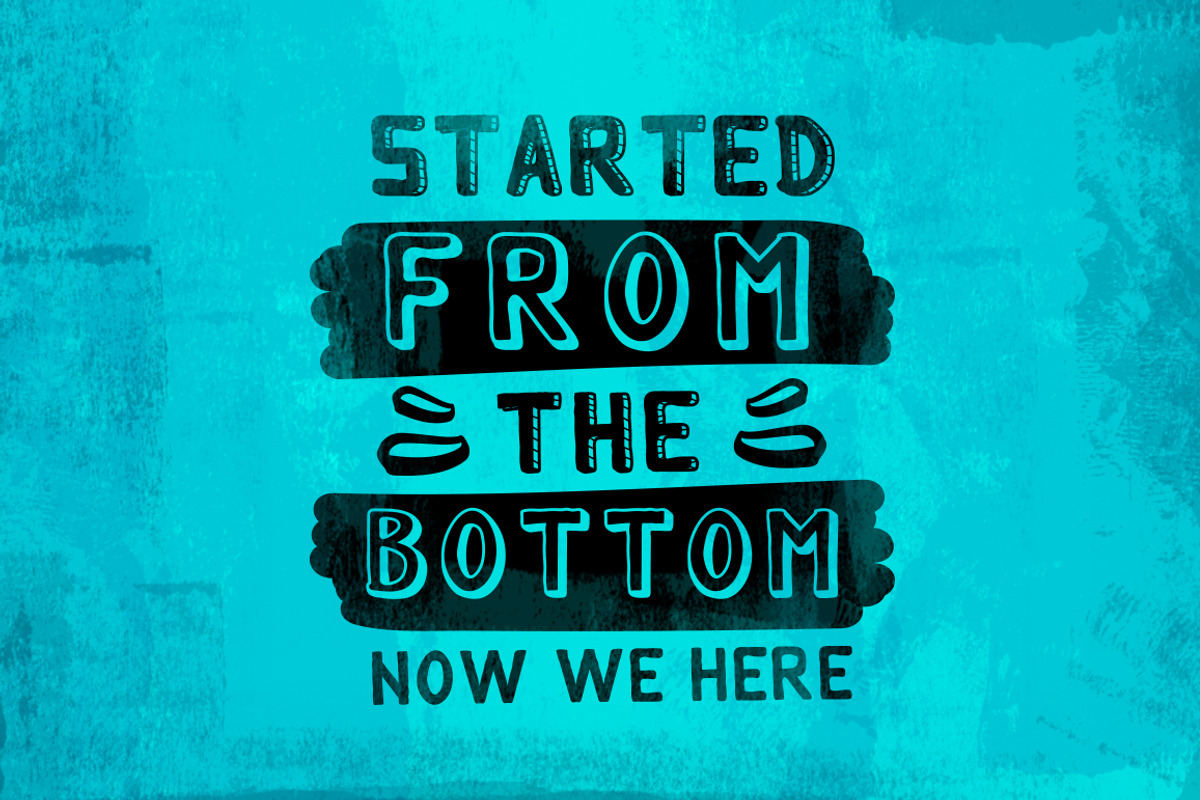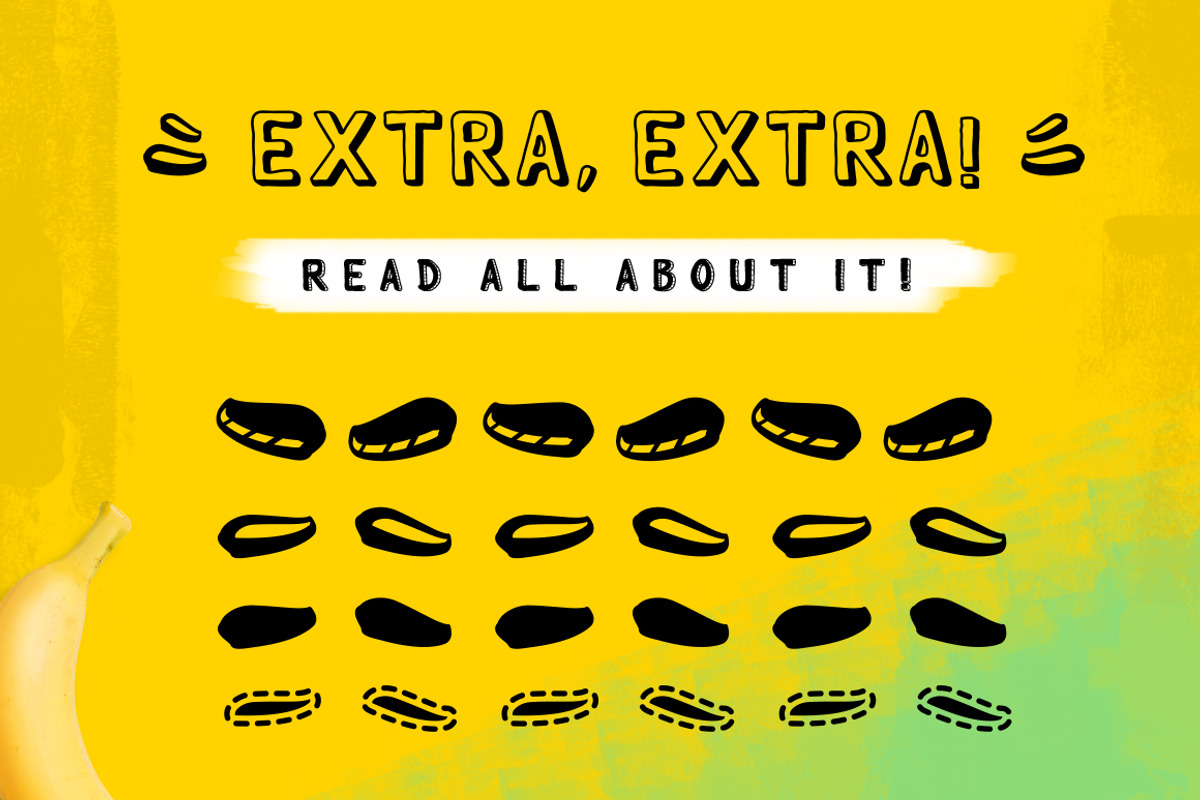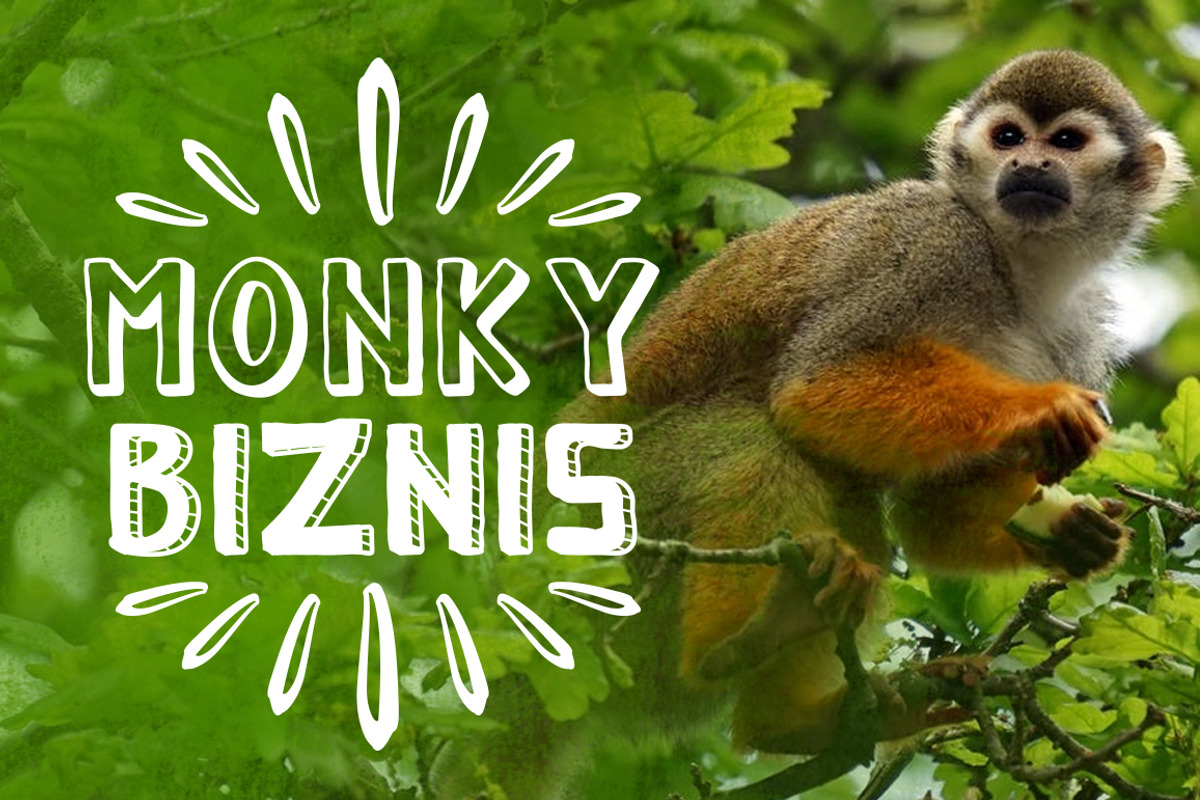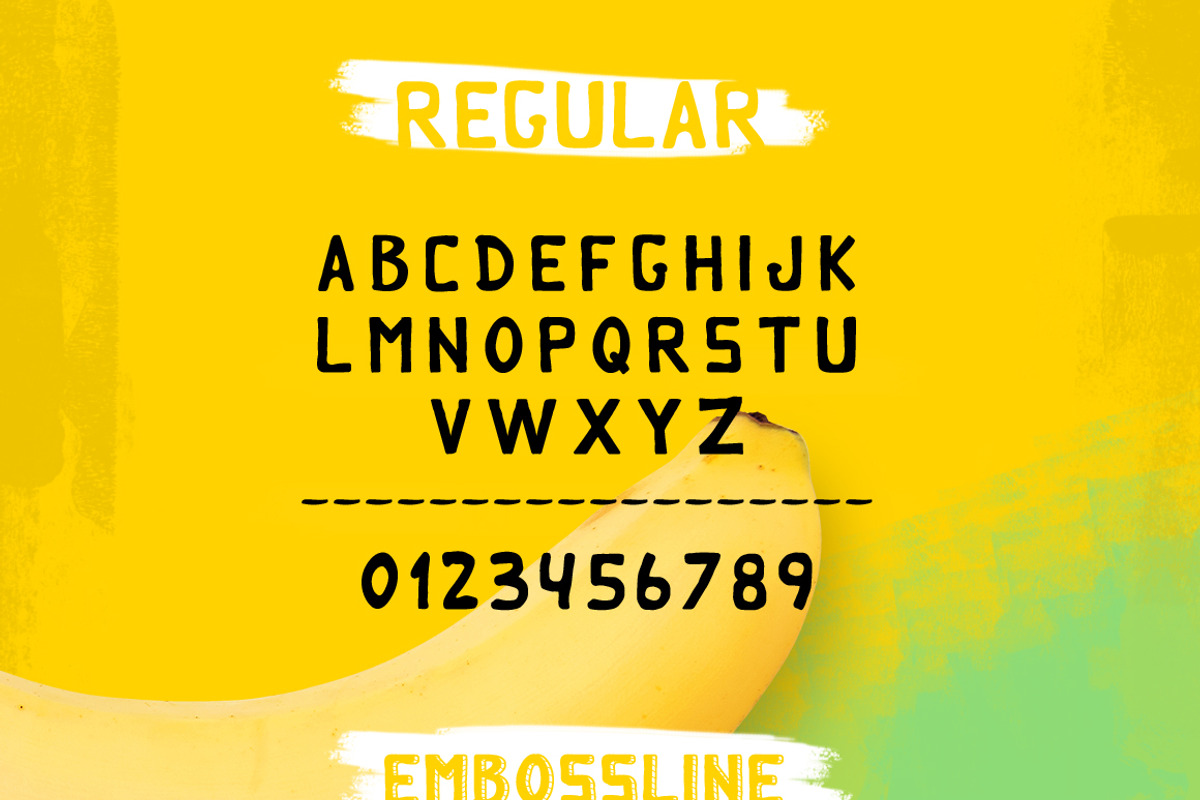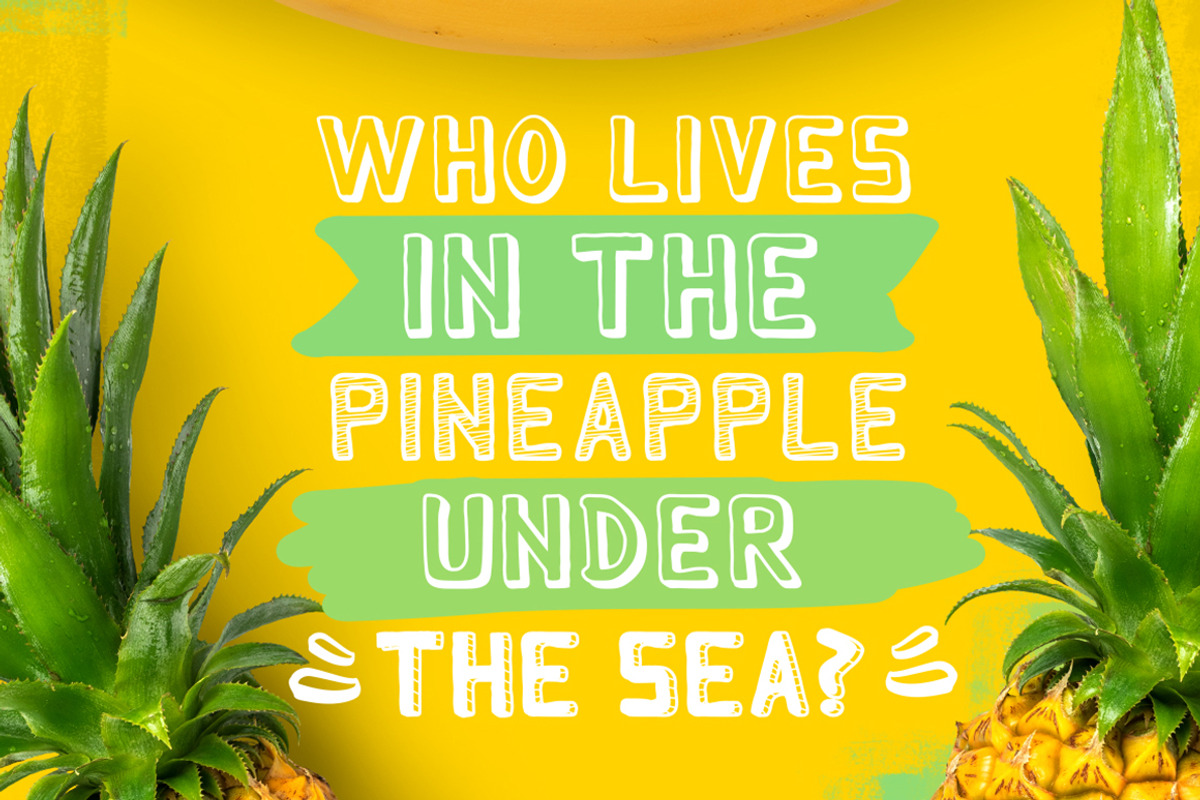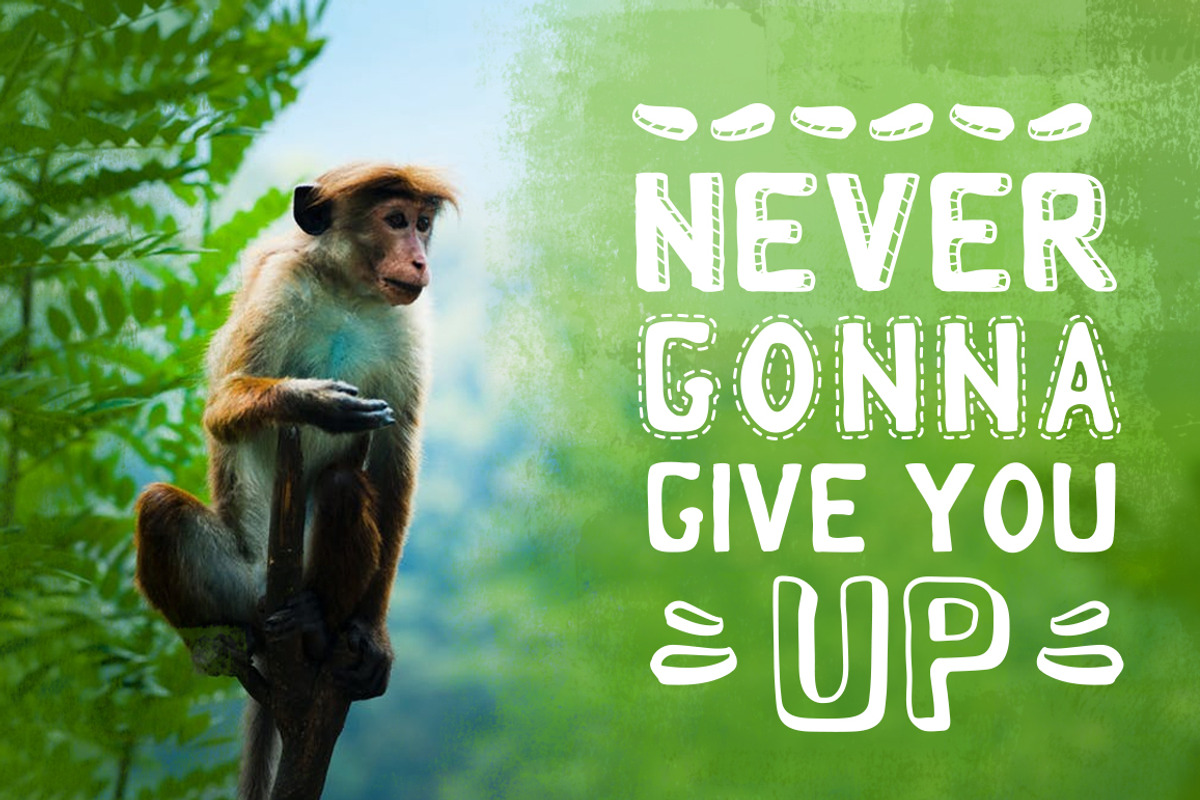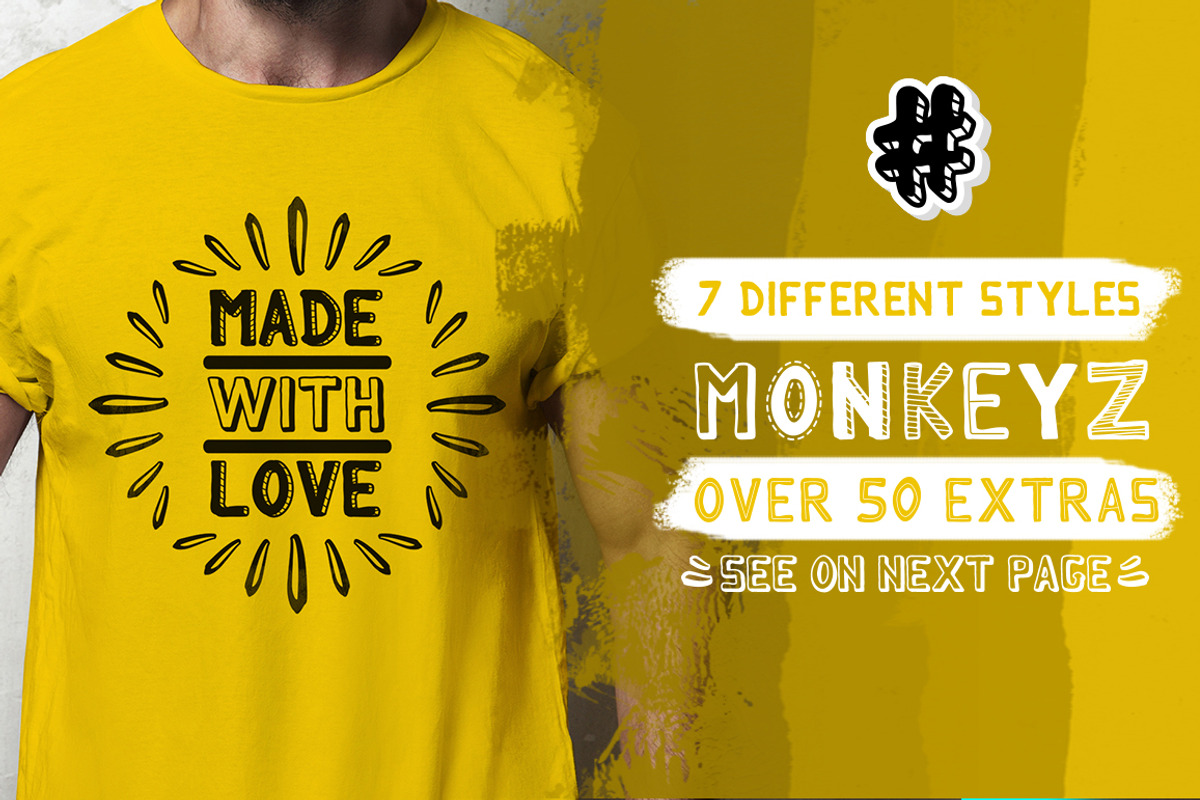
MONKY - 7 Styles Font
It's time.... It's time to release the Monky!
Monky is a fun and versatile font family with 7 different styles and 50+ bonus shapes. Create unique and fun designs that stand out like a monkey out of the jungle :)
- Monky - Basic Regular
- Monky - Dotted Regular
- Monky - Embossline Regular
- Monky - Extras Regular
- Monky - Inline Regular
- Monky - Lines Regular
- Monky- Pressed Regular
- Monky - Scribbly Regular